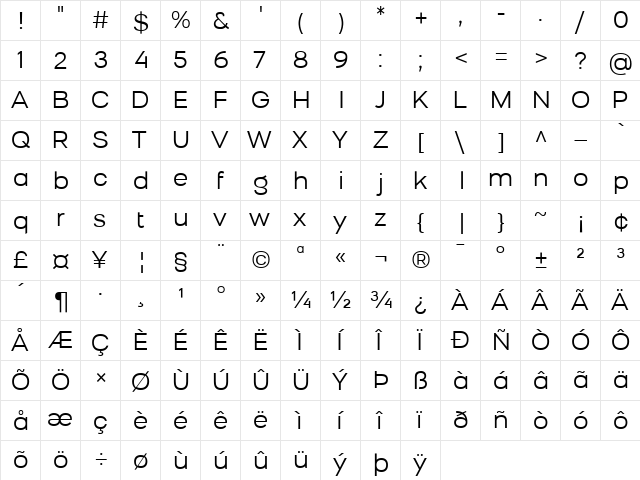
Bronova Regular
Design Context for Bronova Typeface
Bronova is a composed and adaptable typeface that performs quietly and consistently across a wide range of design contexts.